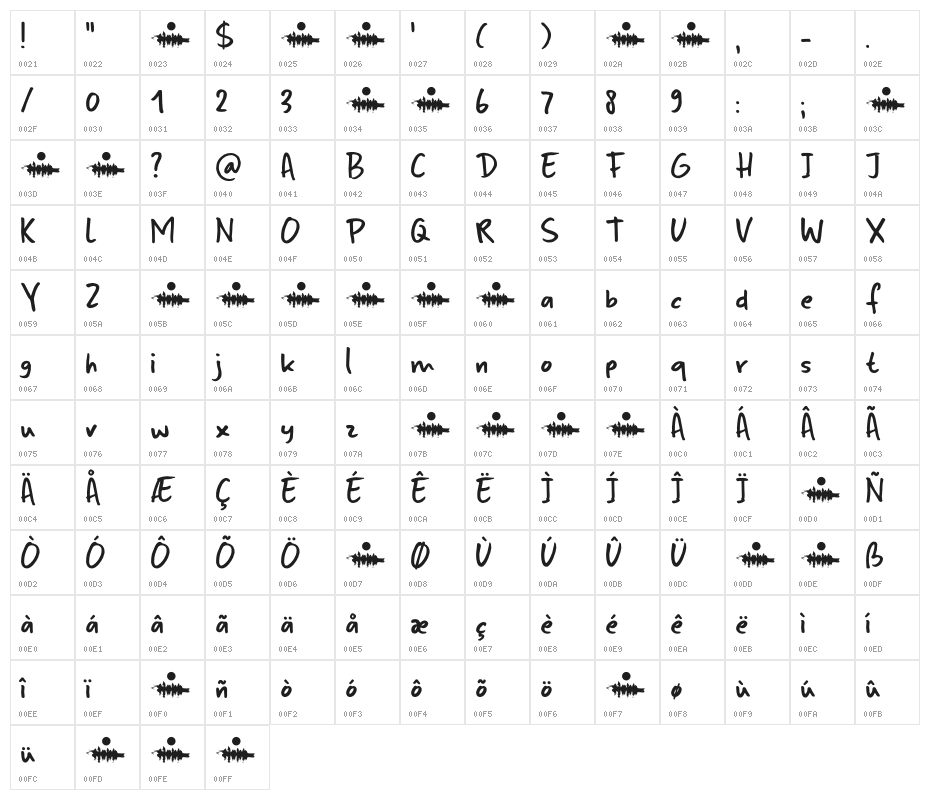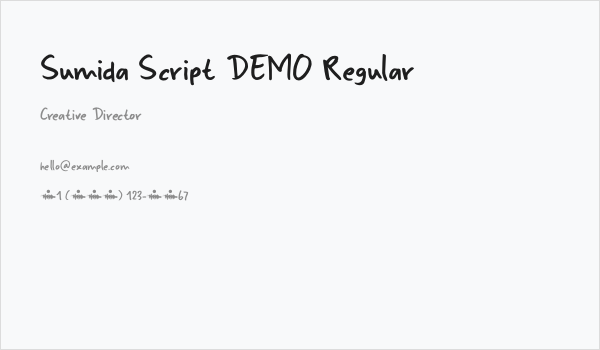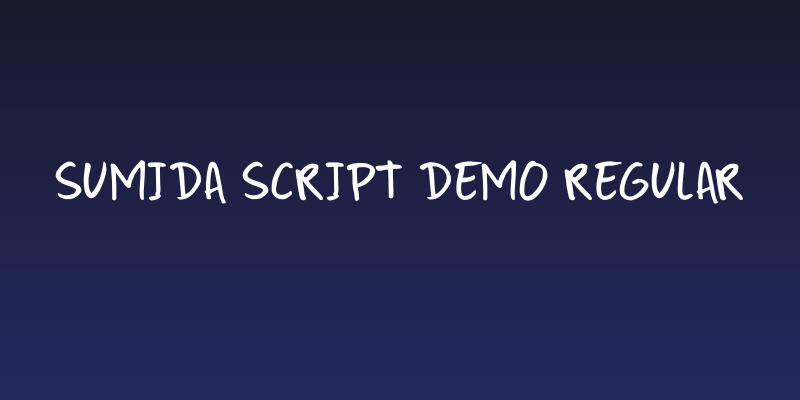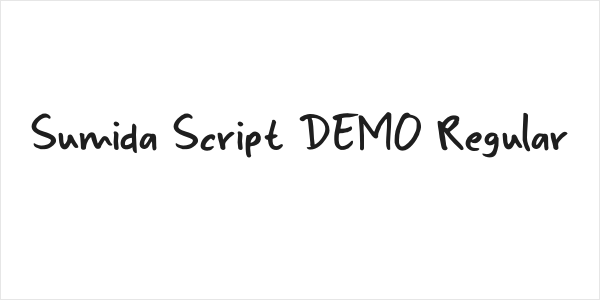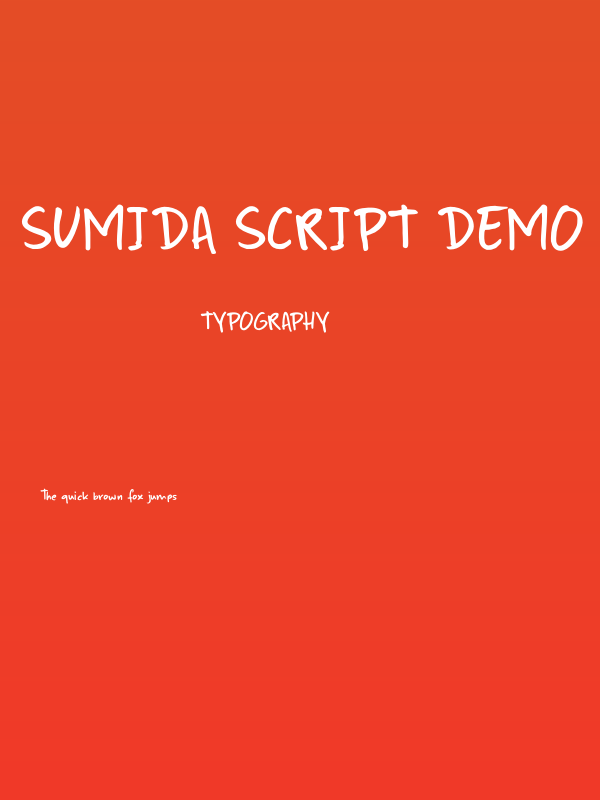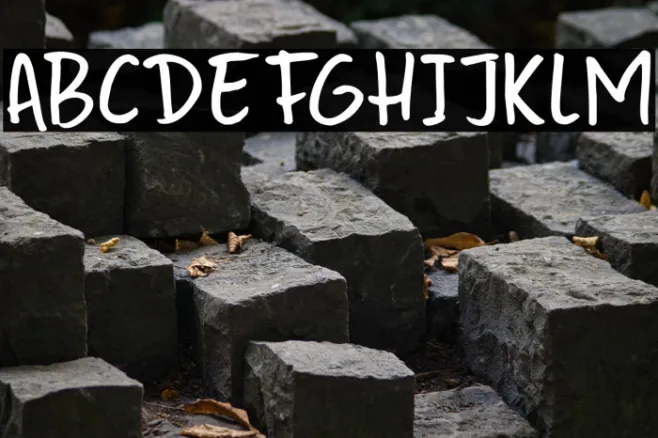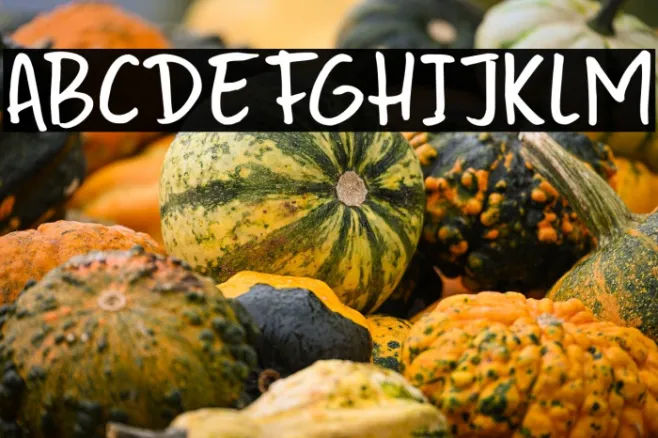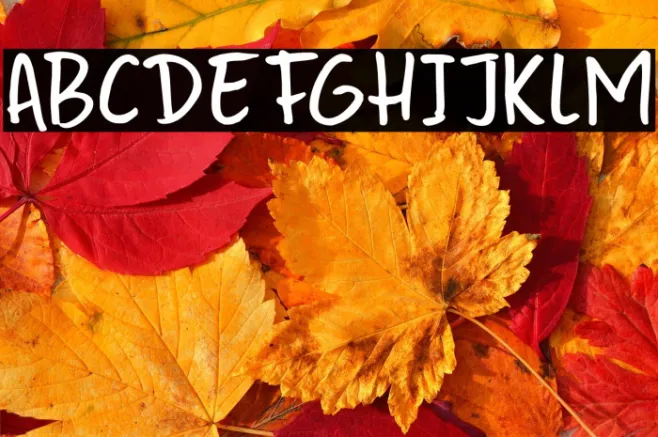
Sumida Script DEMO Regular Font
Sumida Script DEMO Regular Description
This font exhibits a playful and casual handwritten style, characterized by its smooth, flowing curves and slightly irregular strokes. The letters are bold and rounded, giving a friendly and approachable appearance. The uppercase letters maintain a consistent height, while the lowercase letters vary slightly in size, adding to the informal feel. The numbers are clear and legible, matching the overall style of the alphabet. Special characters are included, maintaining the same playful aesthetic. This font is versatile, suitable for projects that require a personal touch or a relaxed vibe.
| Proposed Projects | Ideal for greeting cards, invitations, children's books, and casual branding. |